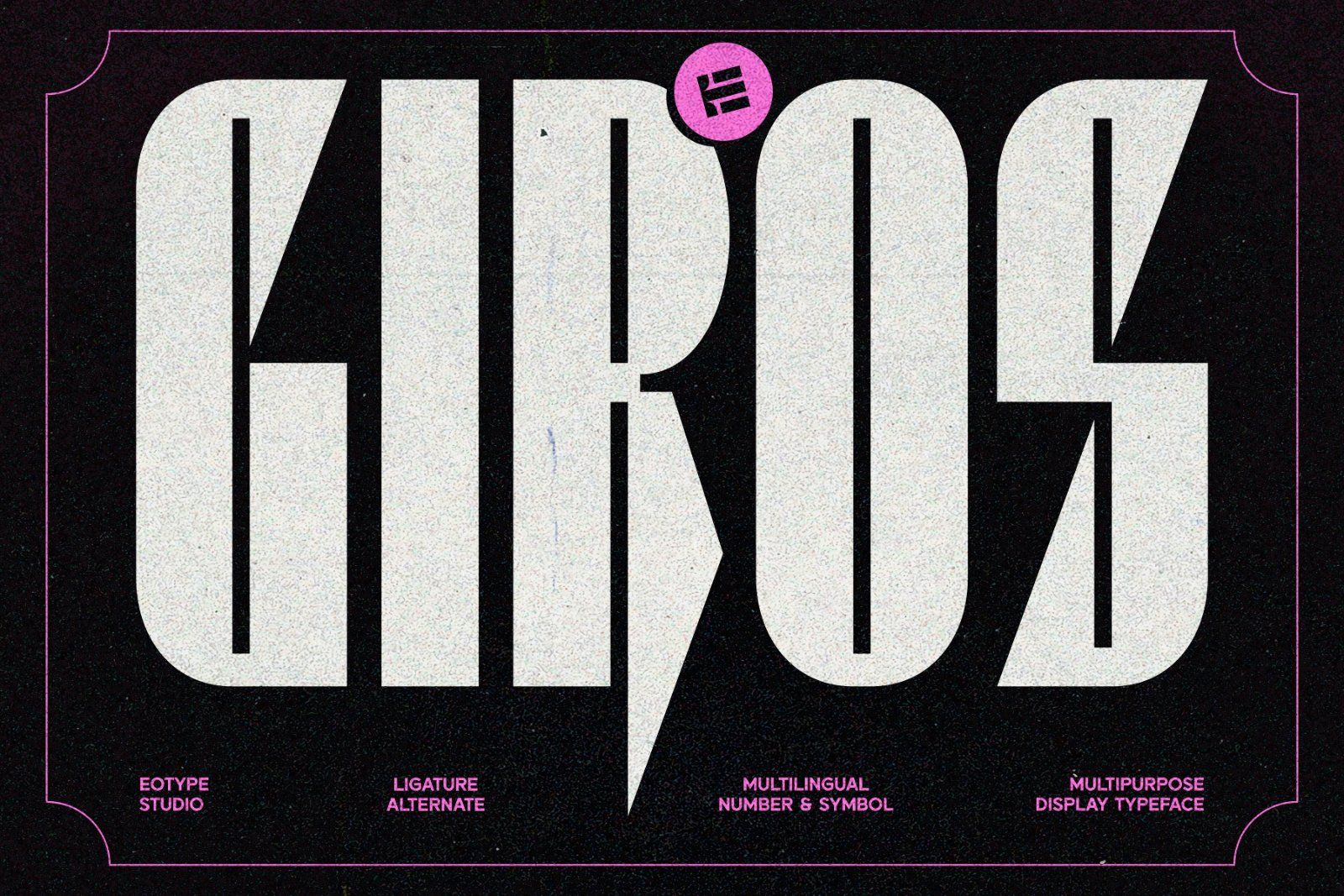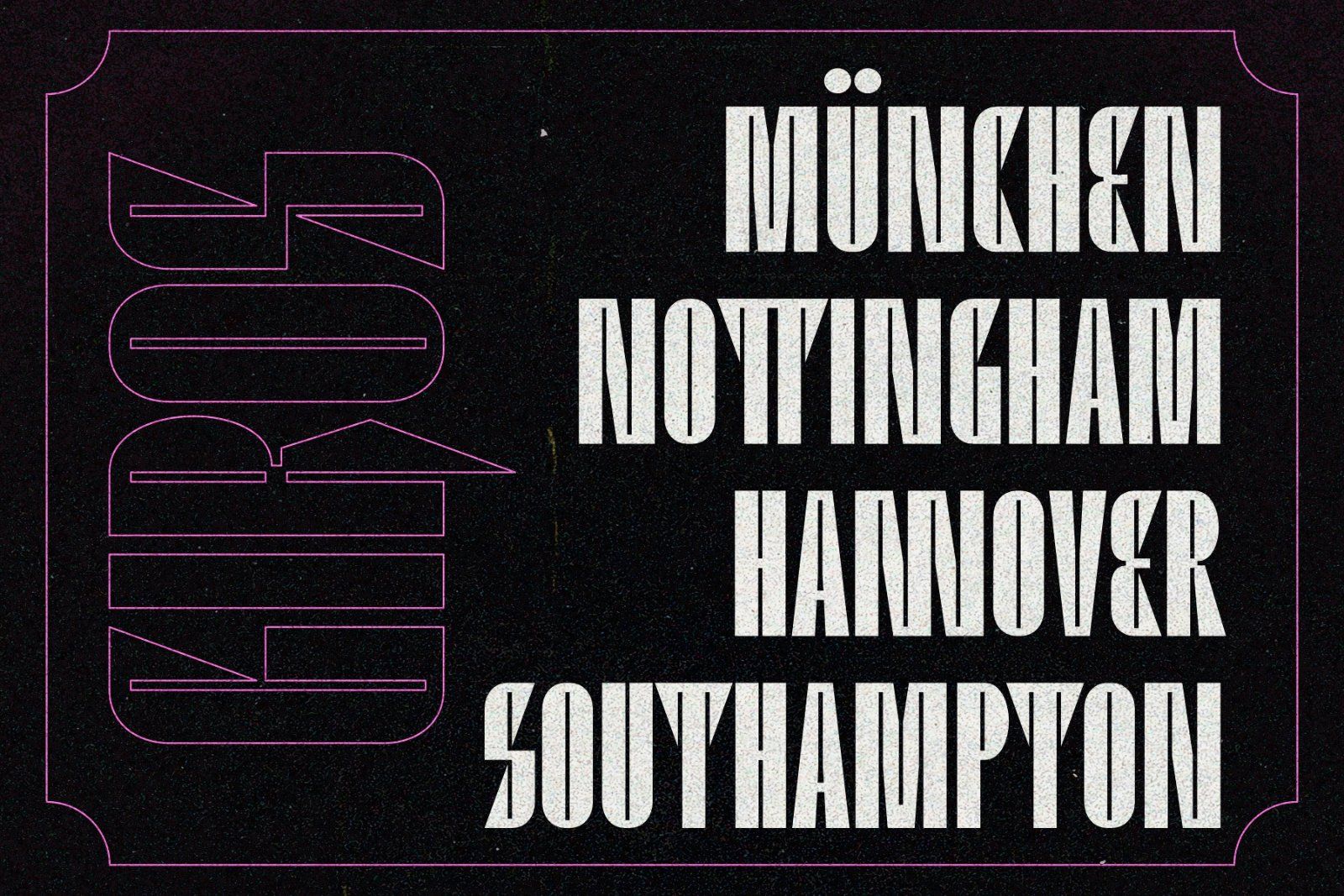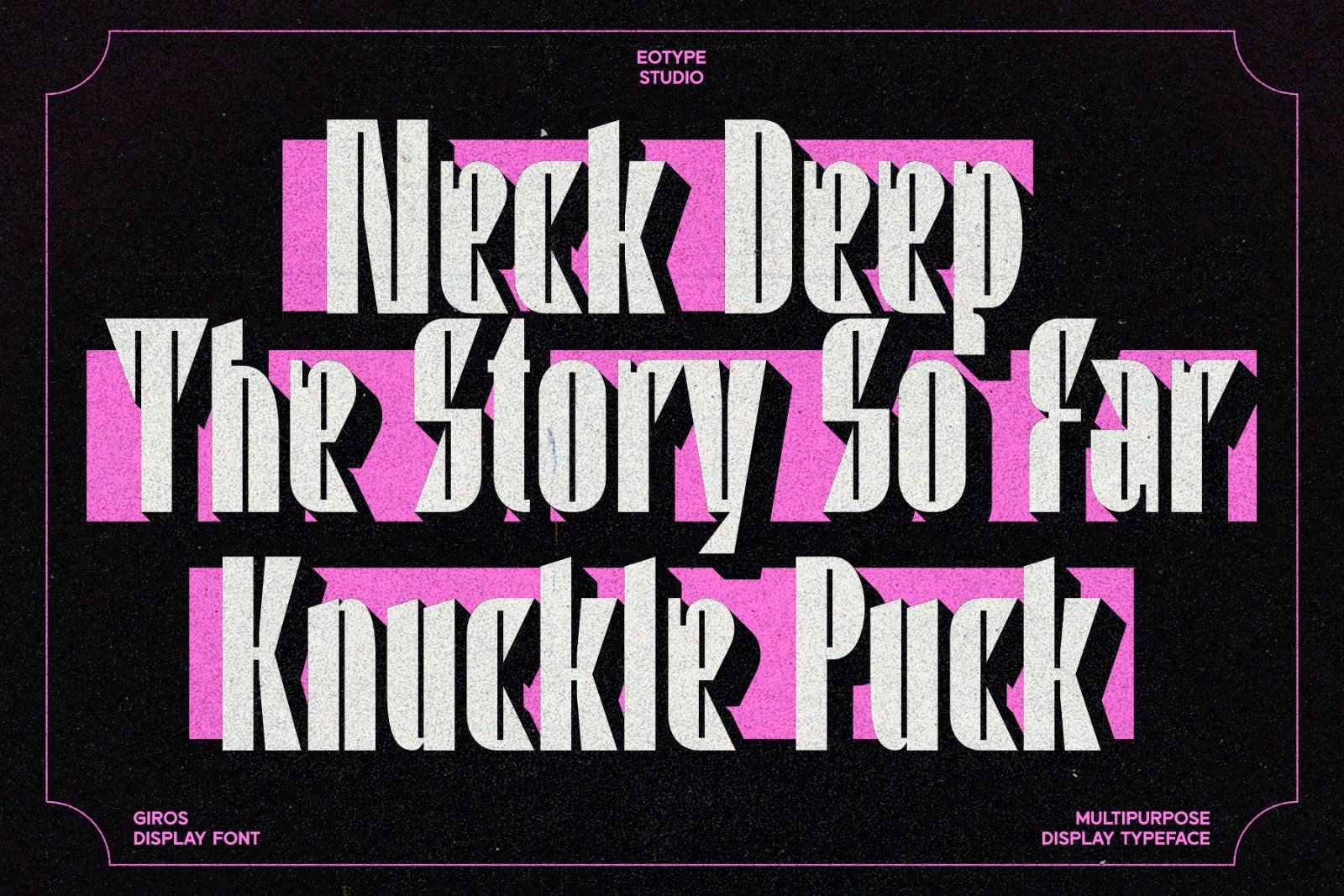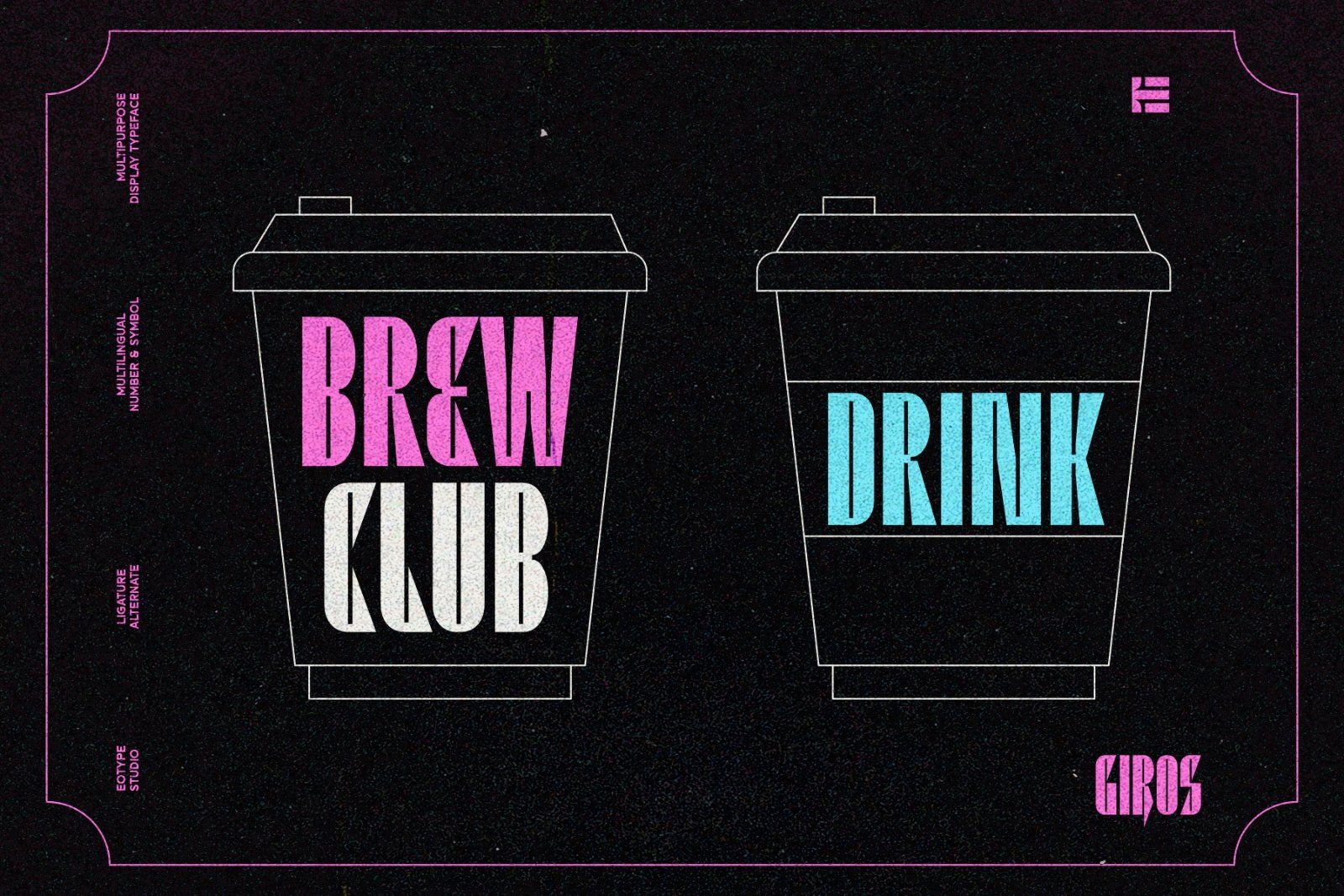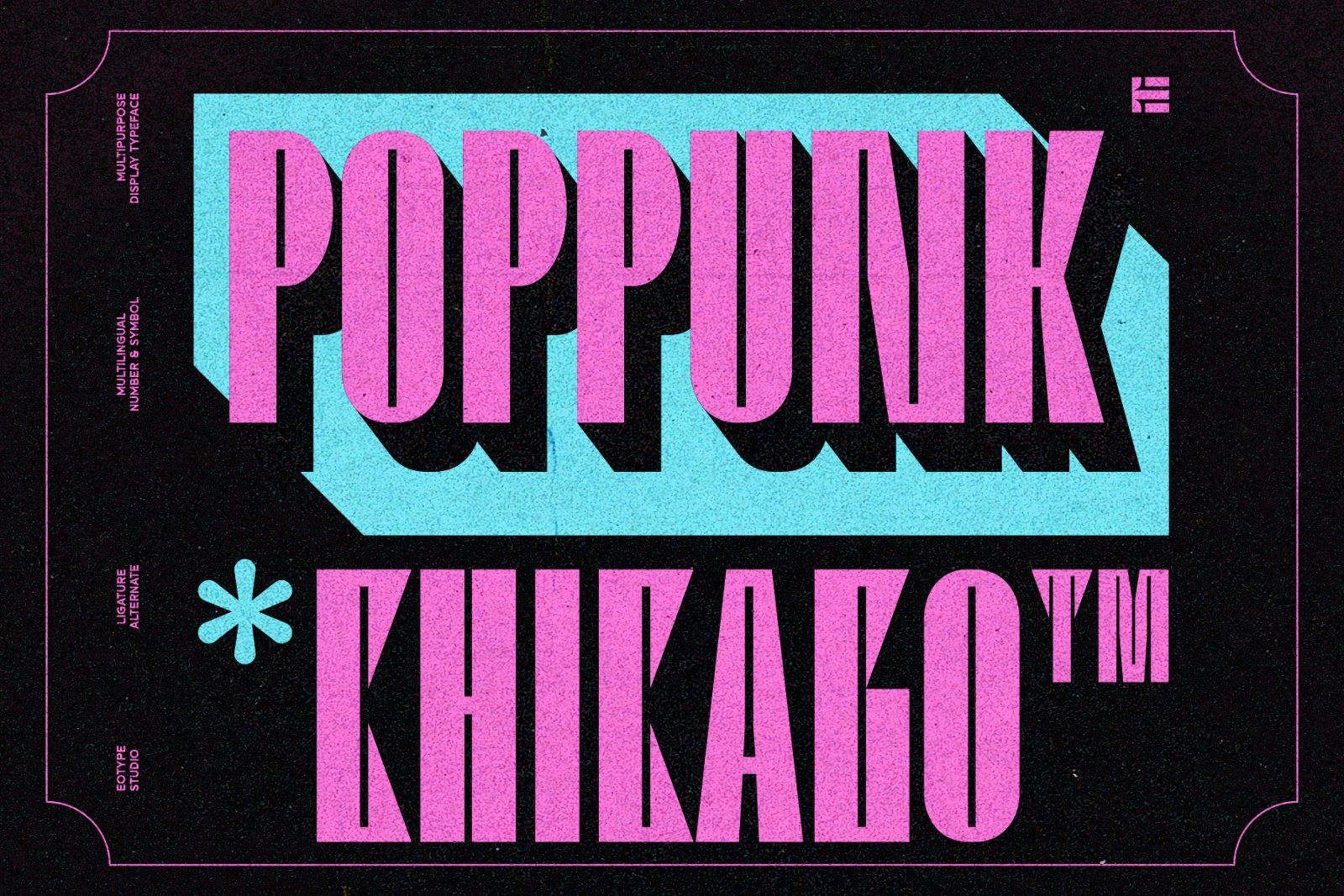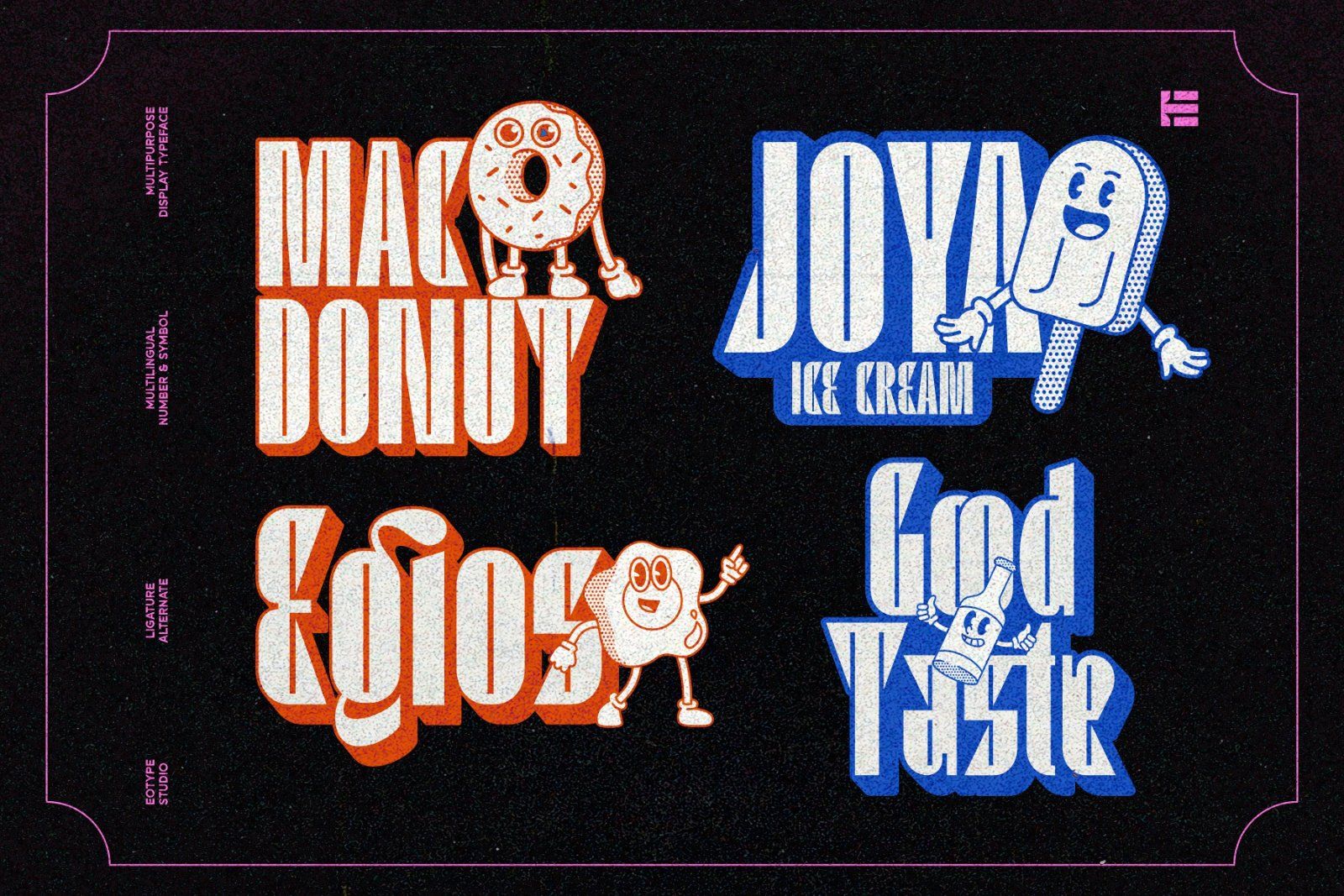
Giros sans-serif grotesque font are typically geometric and uniform in their structure, but they often maintain a slightly imperfect, humanistic feel that gives them character. Giros sans-serif grotesque fonts are appreciated for their balance of simplicity and uniqueness, combining functionality with a subtle touch of personality, making them timeless yet distinctive choices for a variety of design applications.